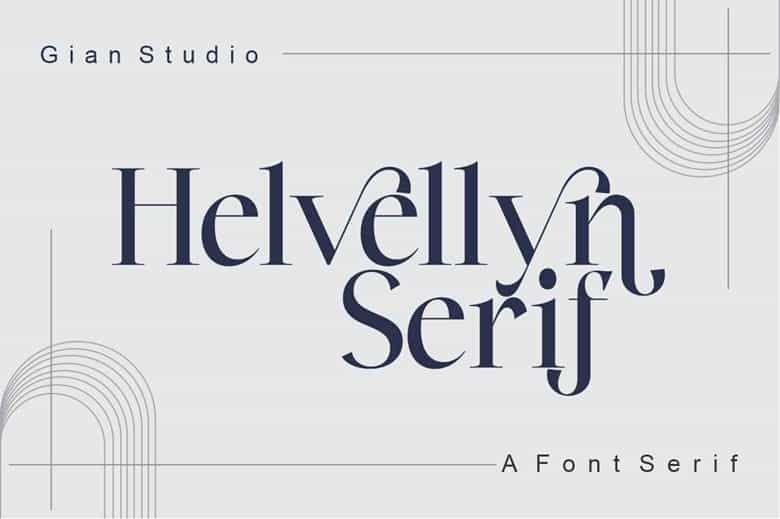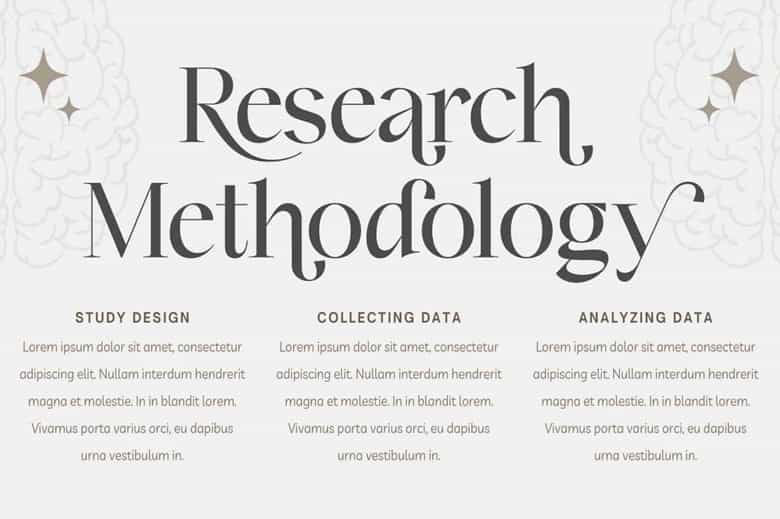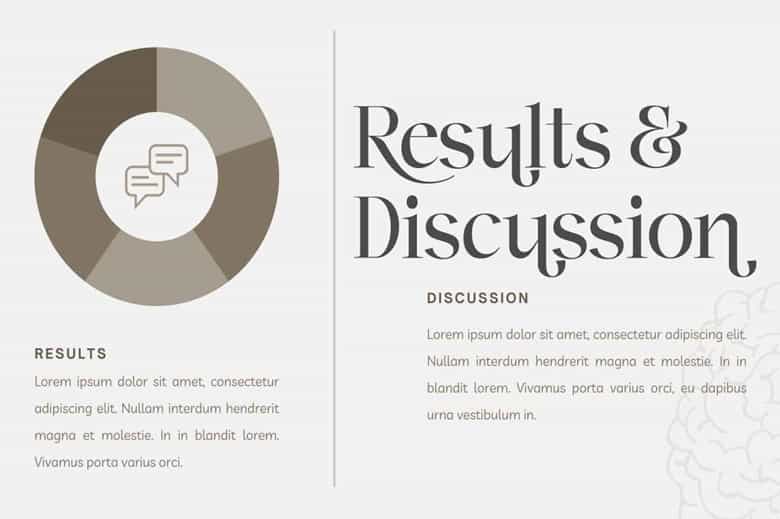
Helvellyn Serif is a ligature and alterative serif typeface. This typeface has been designed with much attention done to ensure only the best could be delivered with the fascinating luxury feel it presents. The ligatures and alternates of this typeface makes it to different from the regular serif rather than the usual ones.